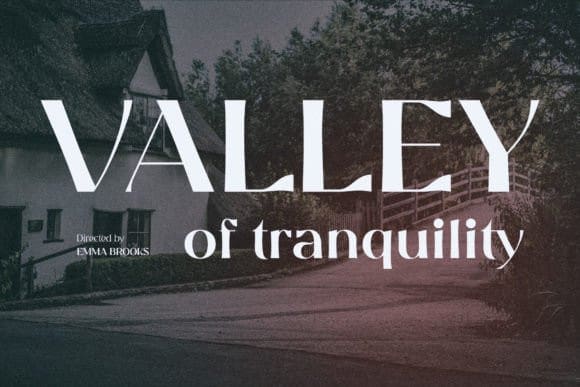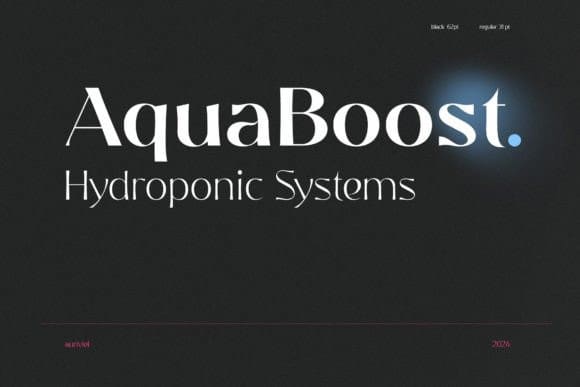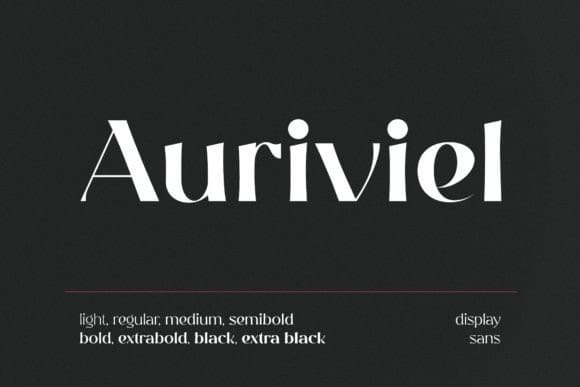
Auriviel Font
Auriviel Font, an elegant display font inspired by the natural world. Featuring high contrast and graceful ligatures, it brings a touch of sophistication to any project. With multiple weights available, Auriviel offers versatility and style, making it perfect for striking headlines, refined branding, and artistic designs.